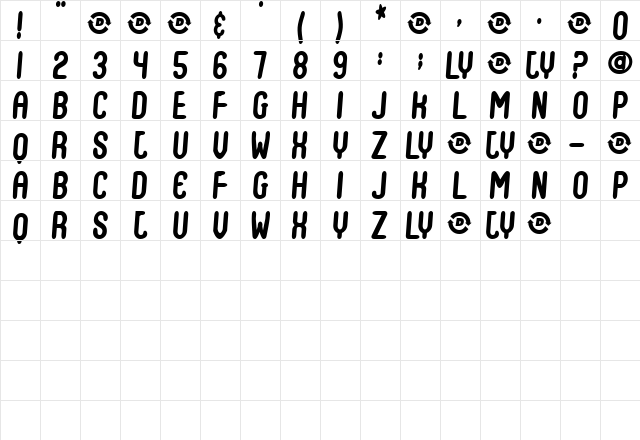
Scout Regular
Design Context for Scout Typeface
Scout is a composed and adaptable typeface that performs quietly and consistently across a wide range of design contexts.